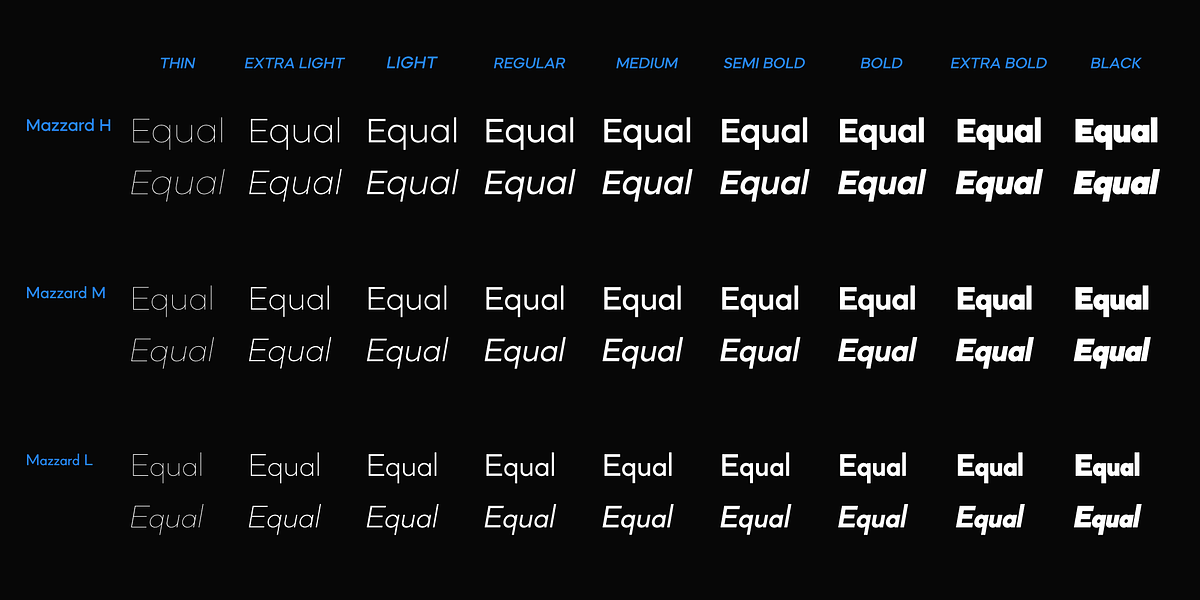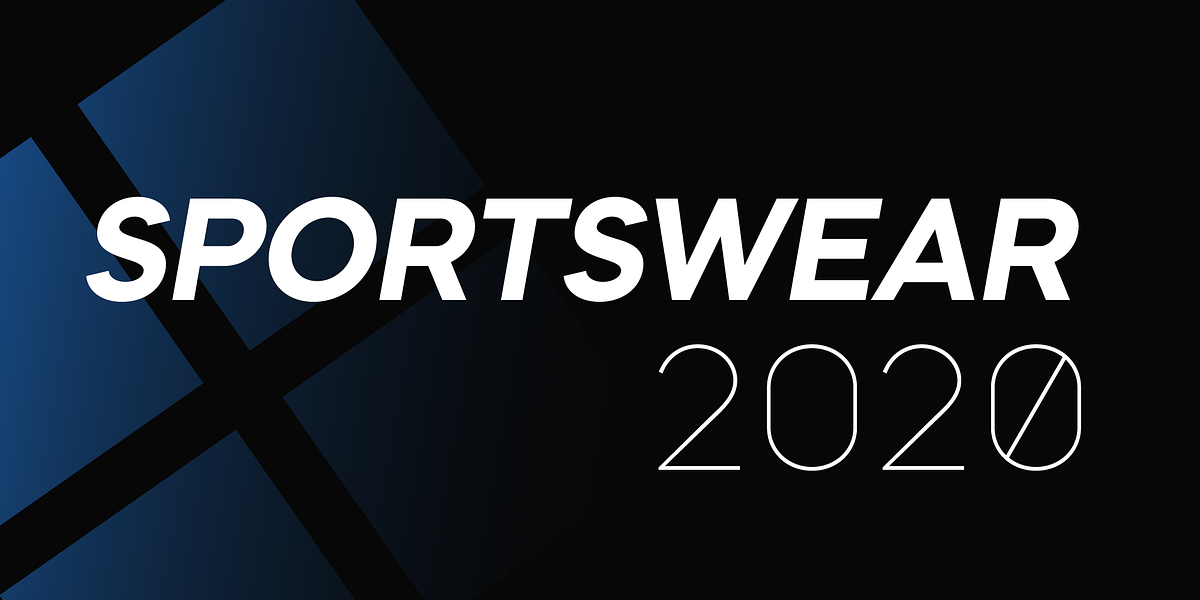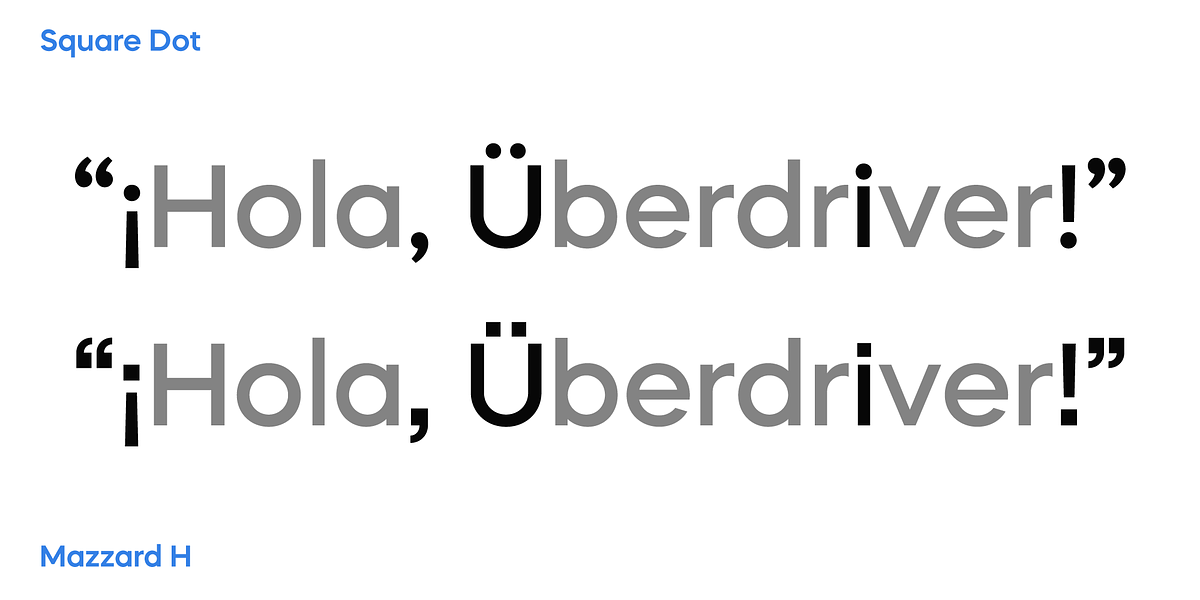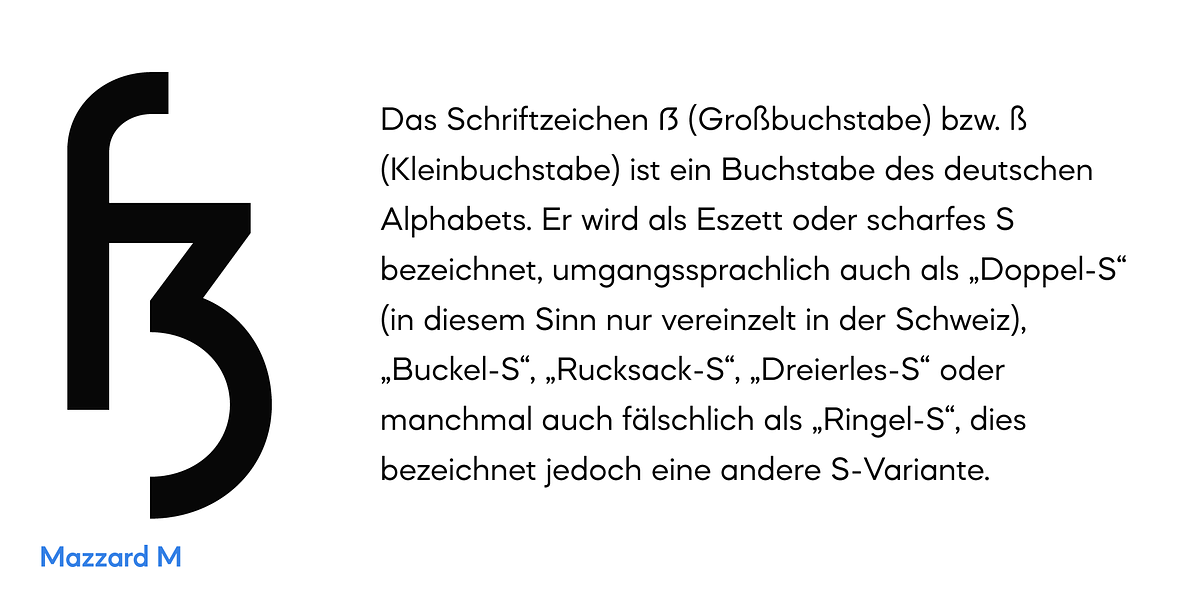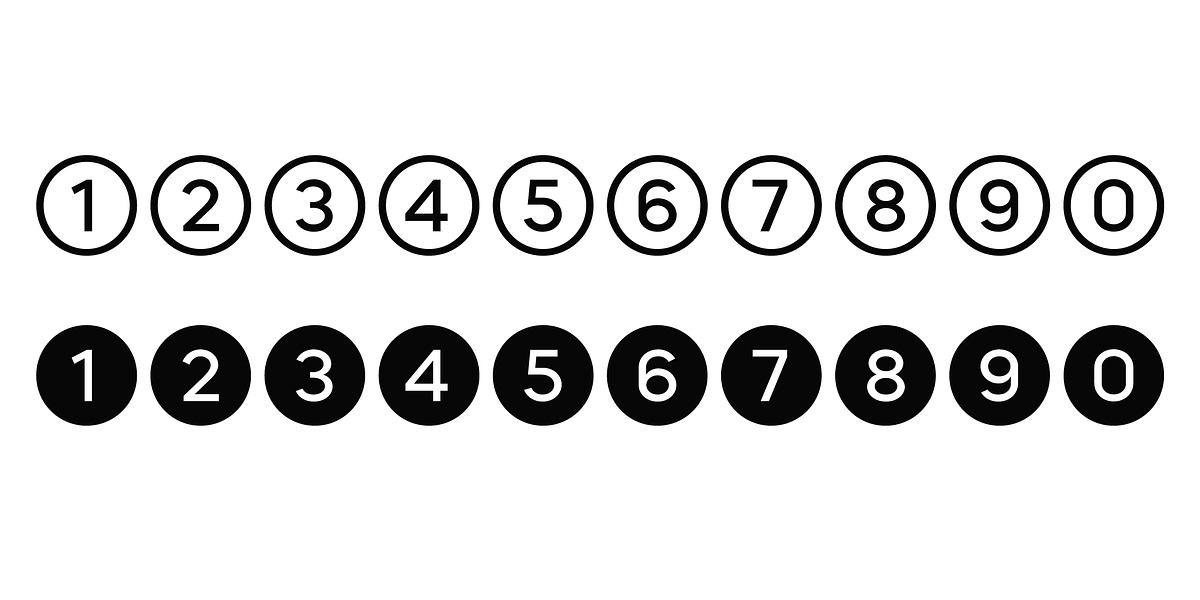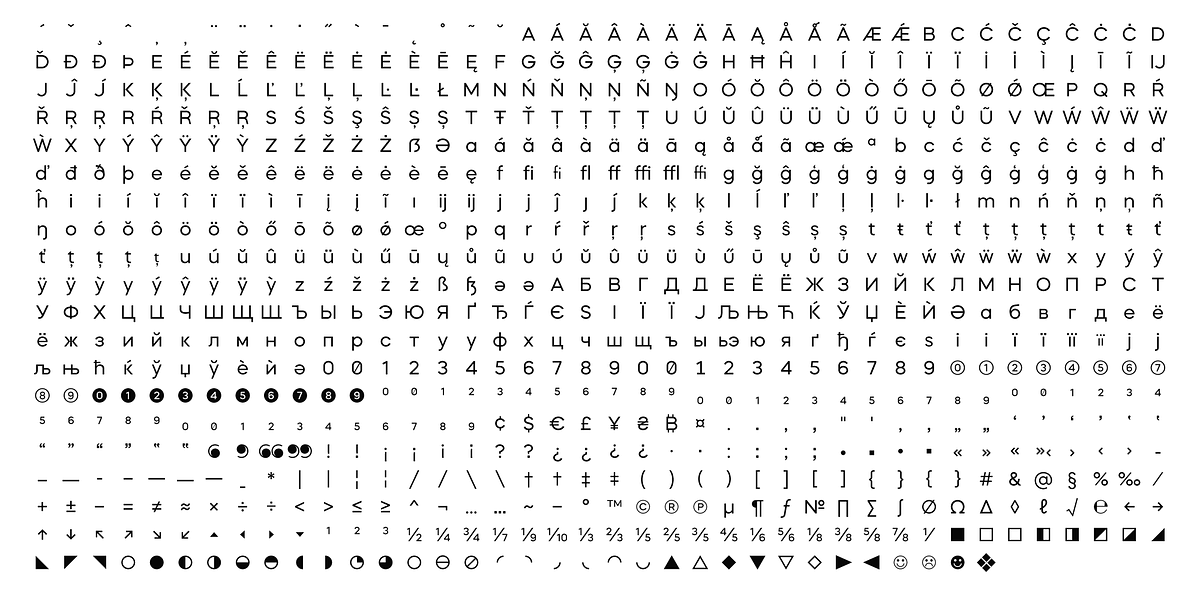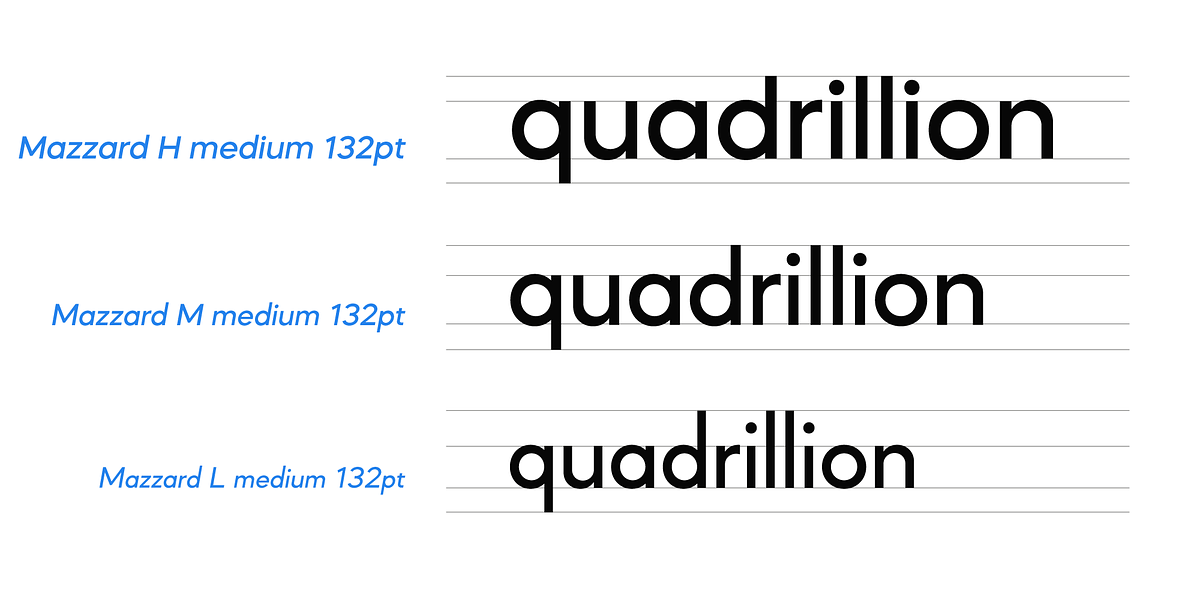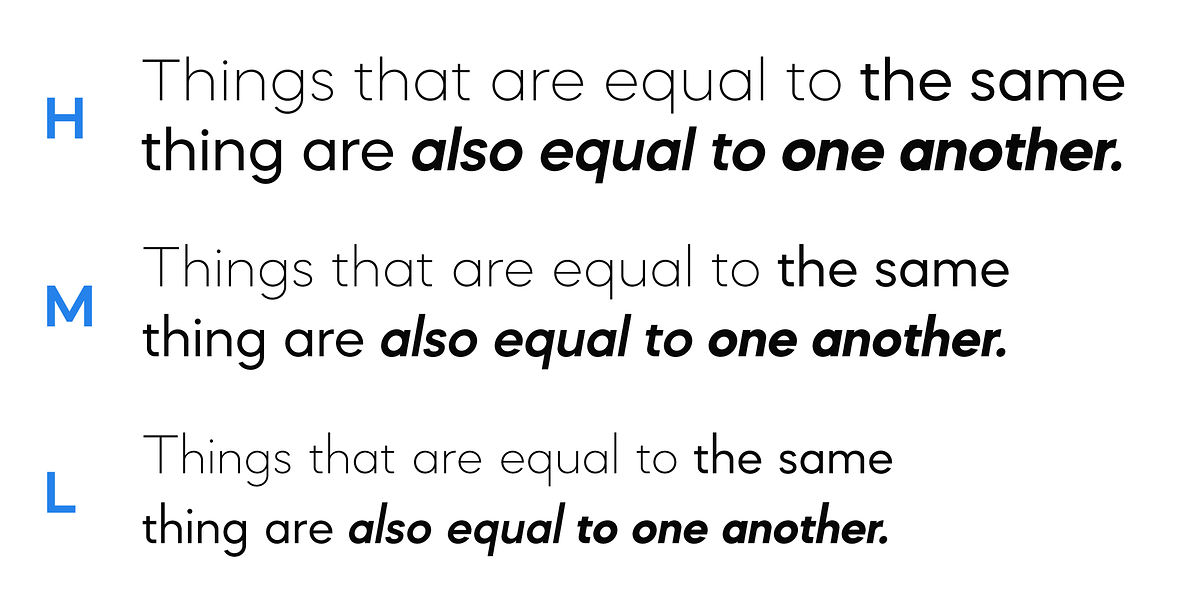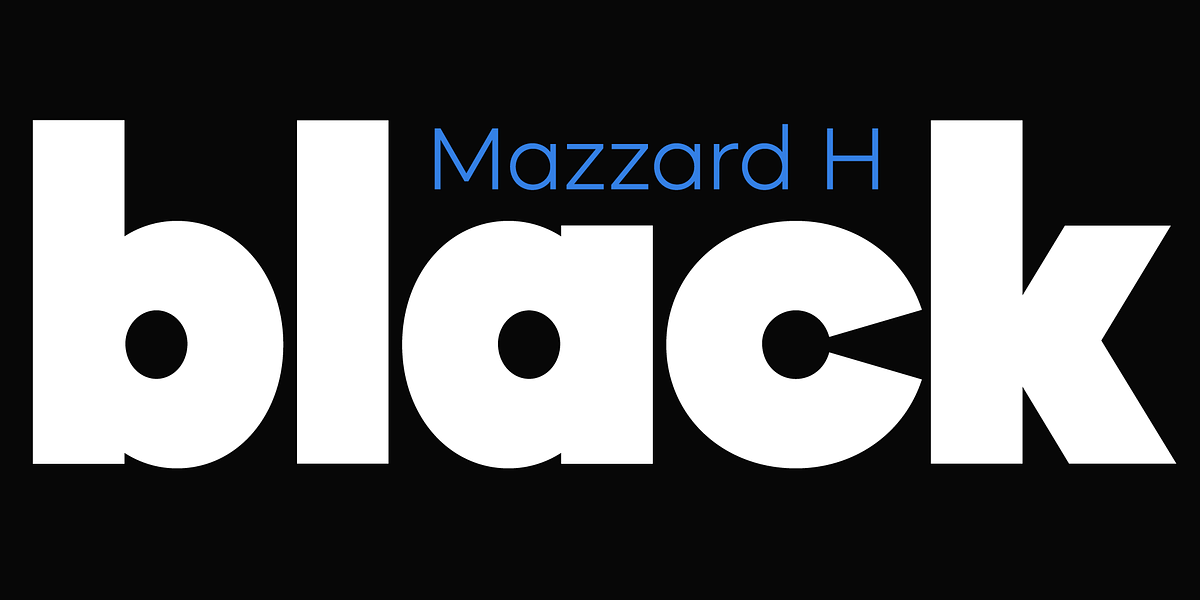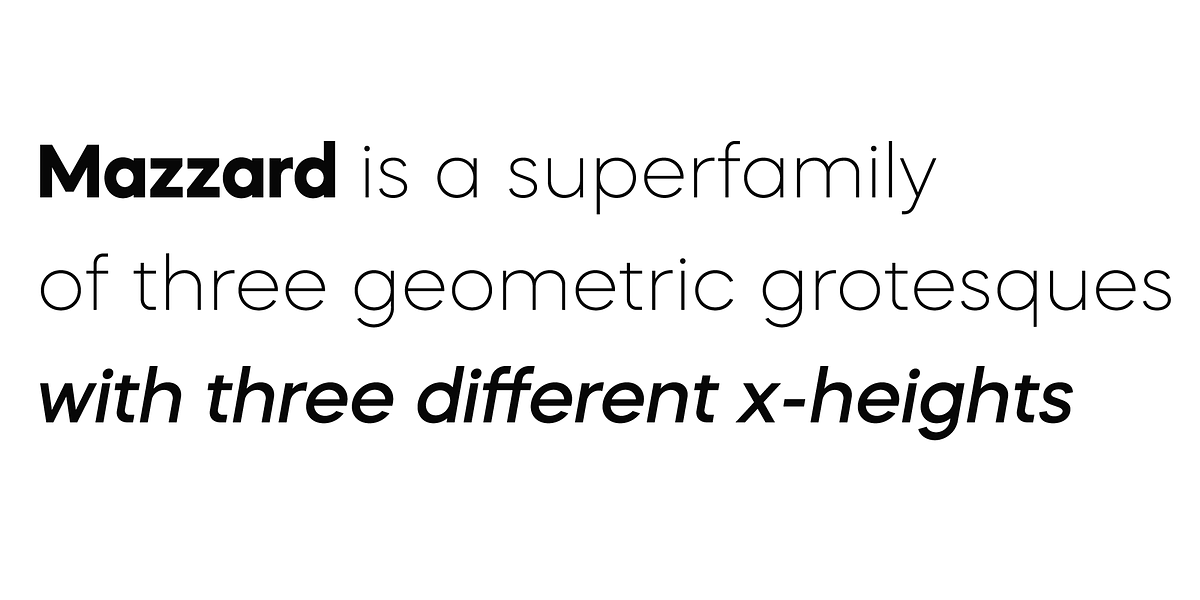
Mazzard L
Mazzard is a versatile geometric sans-serif typeface that comes in three distinct x-heights. This superfamily offers extensive language support, including Cyrillic characters, and provides a wide array of alternate forms for design flexibility.